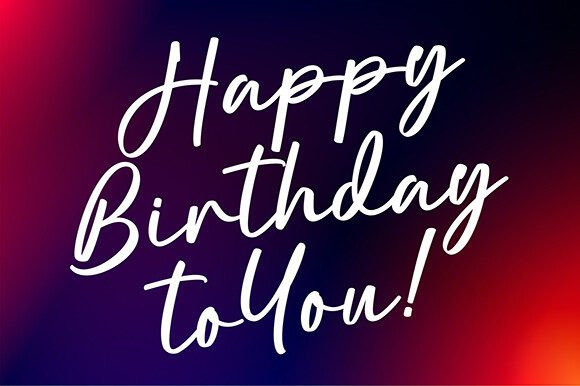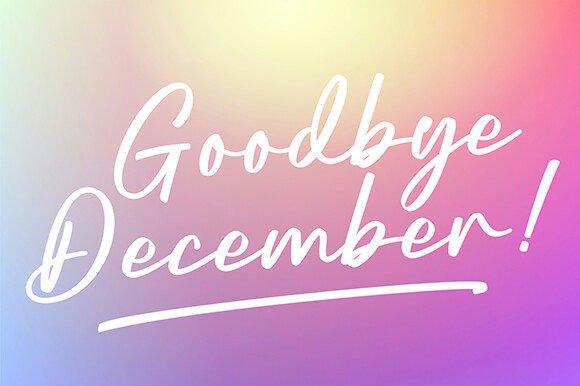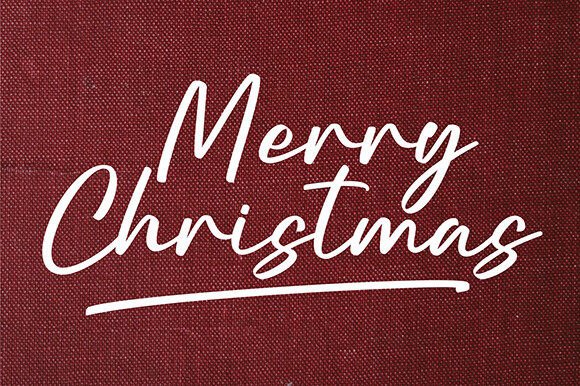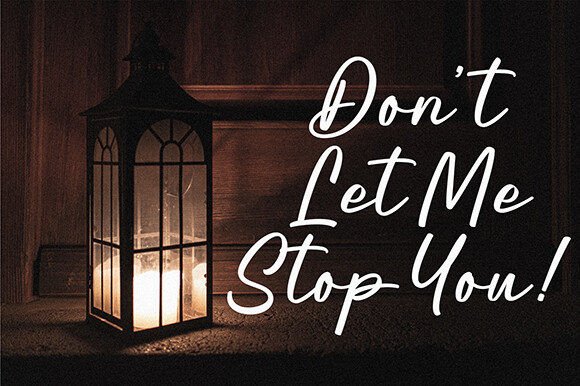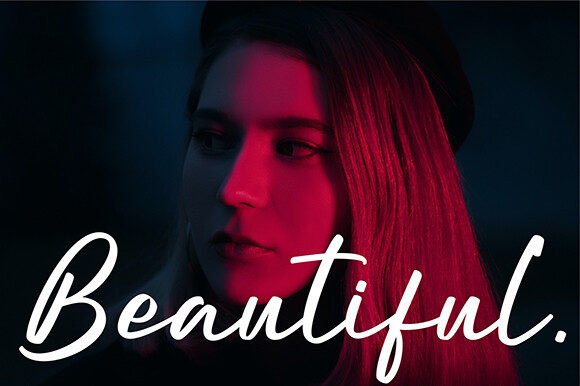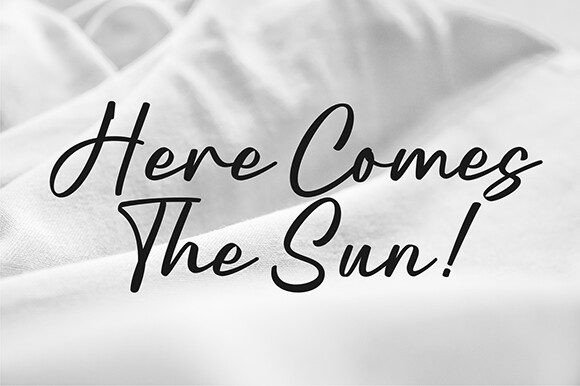
Introducing Beloved Angles Font: The Perfect Brush Script Font for Designers and Crafters
Are you a designer or crafter looking for a unique and elegant font to elevate your creative projects? Look no further than Beloved Angles Font, a beautiful Brush Script font that’s perfect for a wide range of applications. In this article, we’ll explore the features and benefits of Beloved Angles Font, and show you how it can help take your designs to the next level.
What is Beloved Angles Font?
Beloved Angles Font is a stunning Brush Script font that’s designed to add a touch of elegance and sophistication to any project. With its flowing lines and delicate strokes, this font is perfect for creating beautiful and eye-catching designs that will capture the attention of your audience. Whether you’re working on a branding project, crafting a wedding invitation, or designing a social media post, Beloved Angles Font is the perfect choice.
Key Features of Beloved Angles Font
So, what makes Beloved Angles Font so special? Here are just a few of its key features:
- Brush Script Style: Beloved Angles Font has a beautiful, hand-brushed look that’s perfect for creating elegant and sophisticated designs.
- PUA Encoded: This font is PUA encoded, which means you can access all of the amazing glyphs and ligatures with ease.
- Multipurpose: Beloved Angles Font is perfect for a wide range of projects, including branding, crafting, invitations, stationery, wedding designs, social media posts, advertisements, product packaging, product designs, labels, posters, photography, special events, and more.
Benefits of Using Beloved Angles Font
So, why should you choose Beloved Angles Font for your next project? Here are just a few of the benefits of using this amazing font:
- Elegant and Sophisticated: Beloved Angles Font adds a touch of elegance and sophistication to any project, making it perfect for high-end designs.
- Versatile: This font is perfect for a wide range of projects, from branding and advertising to crafting and wedding designs.
- Easy to Use: Beloved Angles Font is PUA encoded, making it easy to access all of the amazing glyphs and ligatures.
- Unique: With its beautiful, hand-brushed look, Beloved Angles Font is sure to make your designs stand out from the crowd.
How to Use Beloved Angles Font
Using Beloved Angles Font is easy! Here are a few tips to get you started:
- Pair it with Other Fonts: Beloved Angles Font looks great when paired with other fonts, such as sans serifs or serifs.
- Experiment with Colors: This font looks great in a variety of colors, from bold and bright to soft and pastel.
- Use it for Headings and Titles: Beloved Angles Font is perfect for headings and titles, adding a touch of elegance and sophistication to any design.
In conclusion, Beloved Angles Font is a beautiful and versatile Brush Script font that’s perfect for designers and crafters. With its elegant and sophisticated look, this font is sure to elevate your creative projects and make them stand out from the crowd. Whether you’re working on a branding project, crafting a wedding invitation, or designing a social media post, Beloved Angles Font is the perfect choice. So why wait? Download Beloved Angles Font today and start creating stunning designs that will capture the attention of your audience!
- What is Beloved Angles Font?: Beloved Angles Font is a Brush Script font that’s perfect for a wide range of creative projects.
- Is Beloved Angles Font PUA encoded?: Yes, Beloved Angles Font is PUA encoded, making it easy to access all of the amazing glyphs and ligatures.
- What can I use Beloved Angles Font for?: Beloved Angles Font is perfect for branding, crafting, invitations, stationery, wedding designs, social media posts, advertisements, product packaging, product designs, labels, posters, photography, special events, and more.